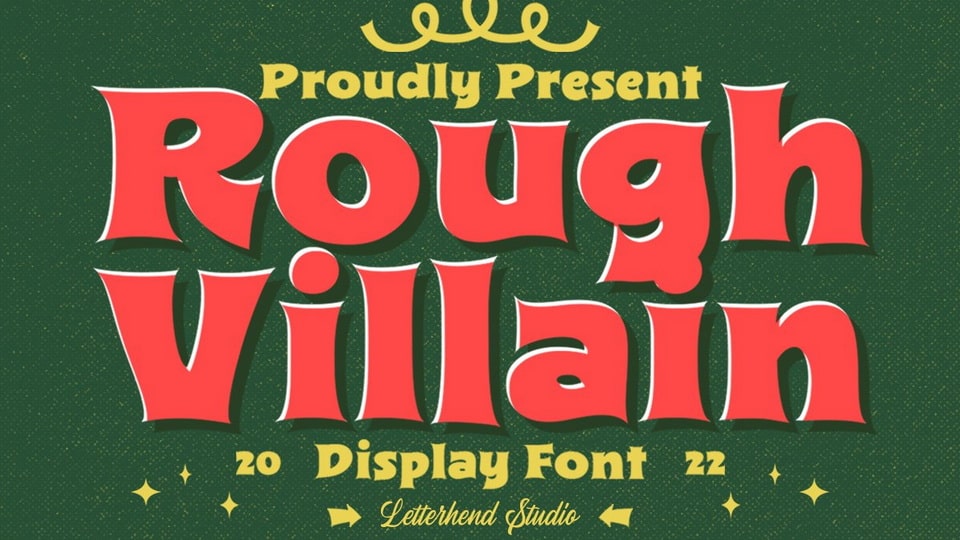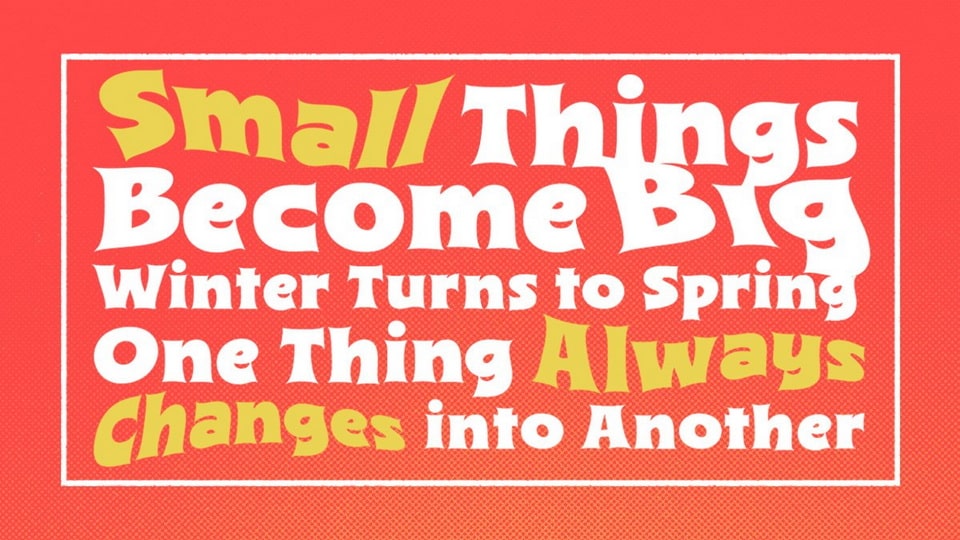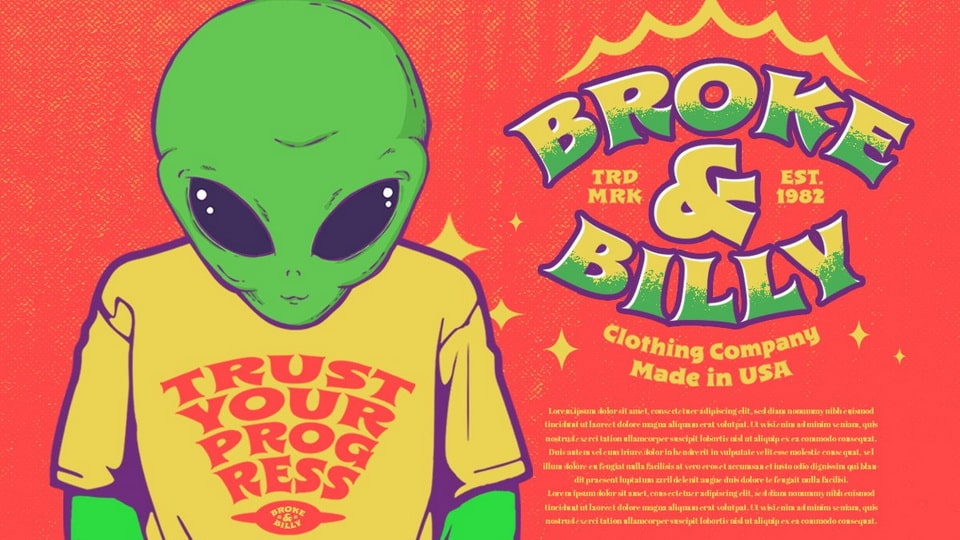
Rough Villain is a bold vintage typeface with a fun and playful look. This font perfectly made to be applied especially in storybook children or child theme which is need a standout font, labels, logos, magazines, books, packaging or any type of advertising purpose.